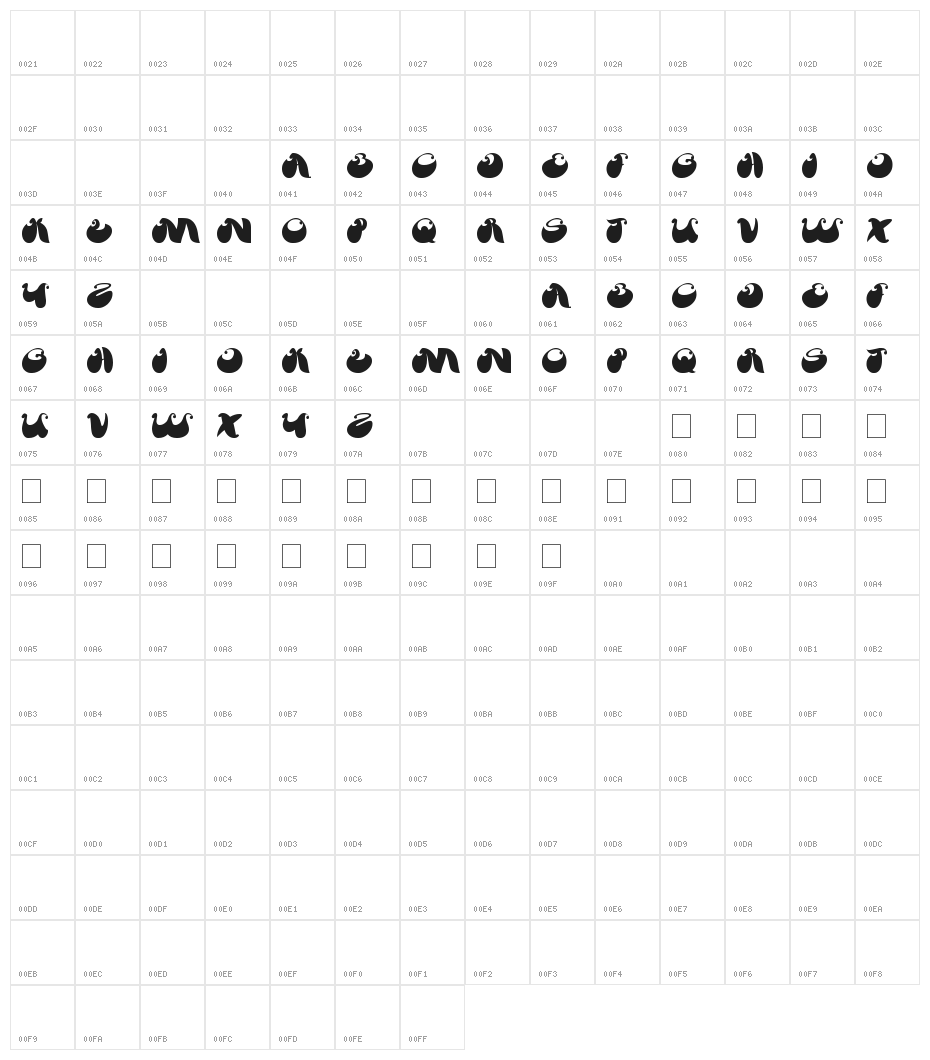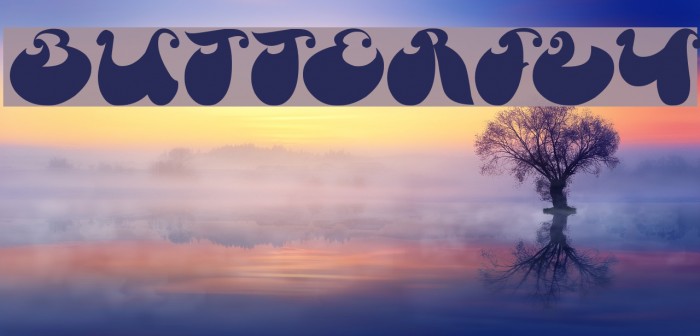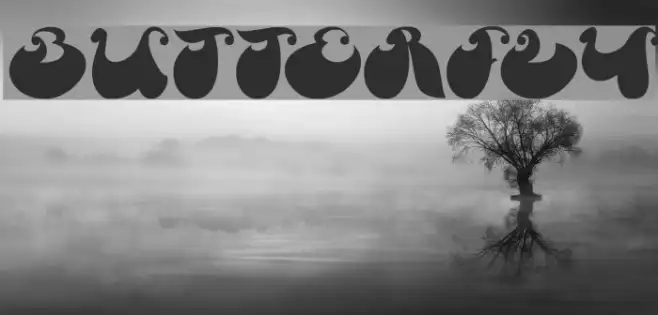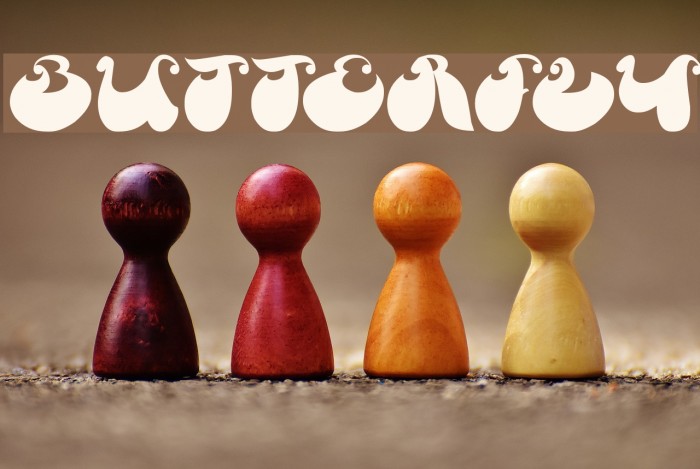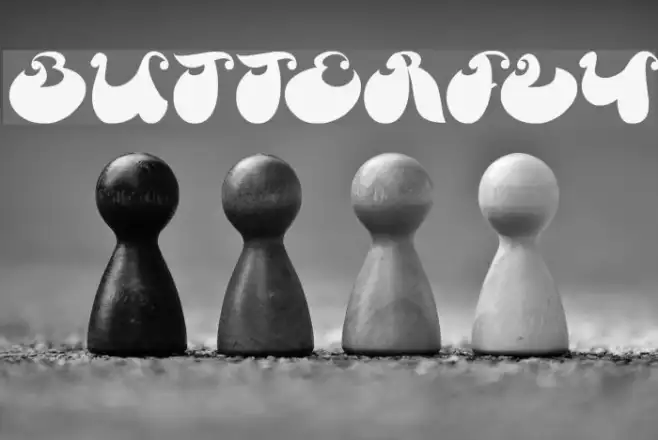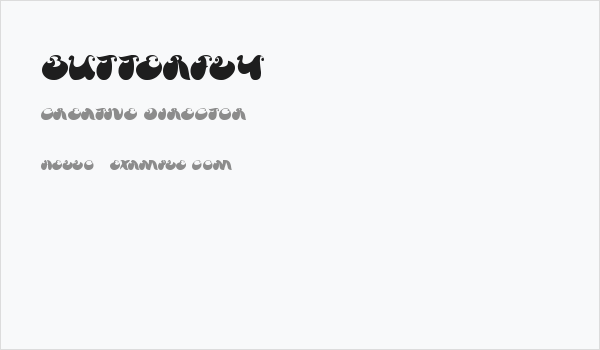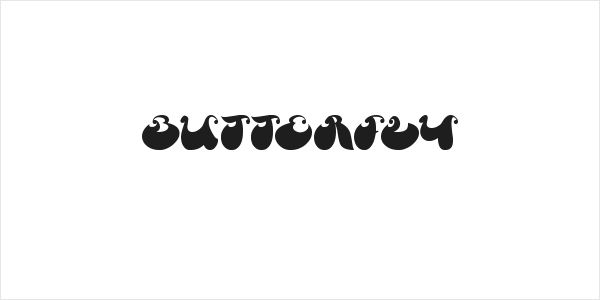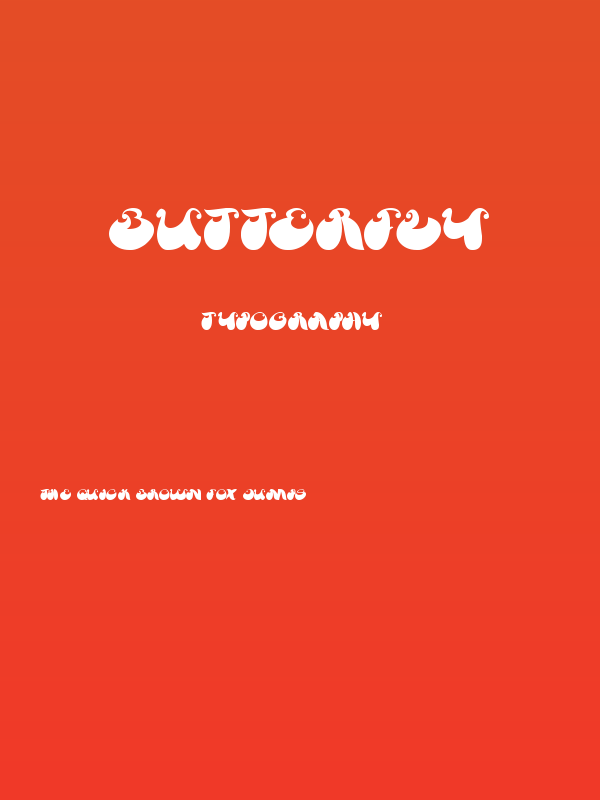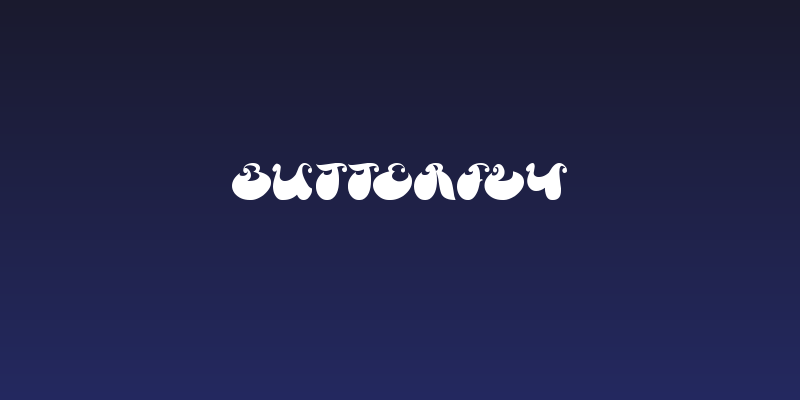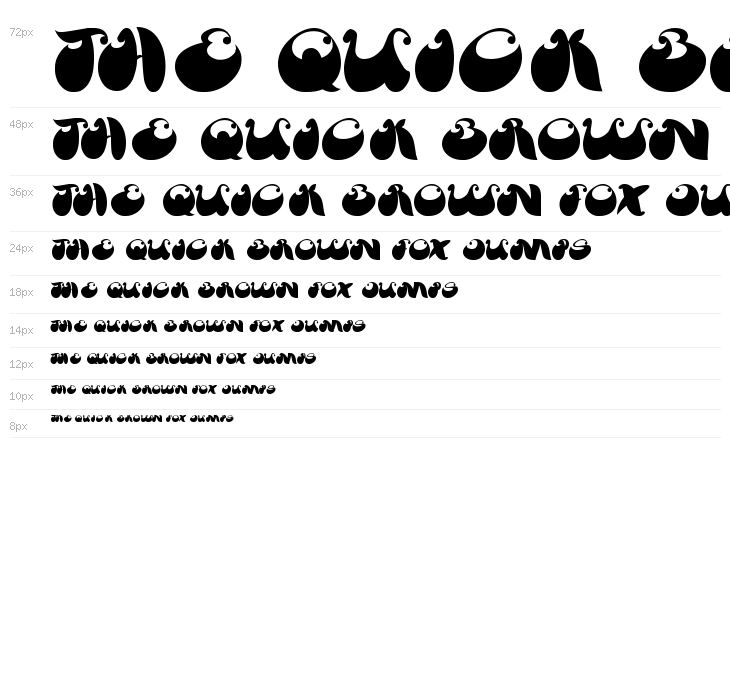
Butterfly Font
Butterfly Description
This font features a highly decorative and playful style with bold, rounded characters that resemble abstract shapes or droplets. Each letter is uniquely designed with a whimsical flair, making it stand out as a statement piece. The characters have a consistent thickness, contributing to a uniform appearance across the typeface. The overall design is eye-catching and artistic, suitable for creative projects that require a touch of fun and uniqueness. The font's boldness and decorative nature make it ideal for use in headlines or logos where a strong visual impact is desired.
| Proposed Projects | Ideal for creative projects such as children's book covers, playful branding, artistic posters, and unique logo designs. |